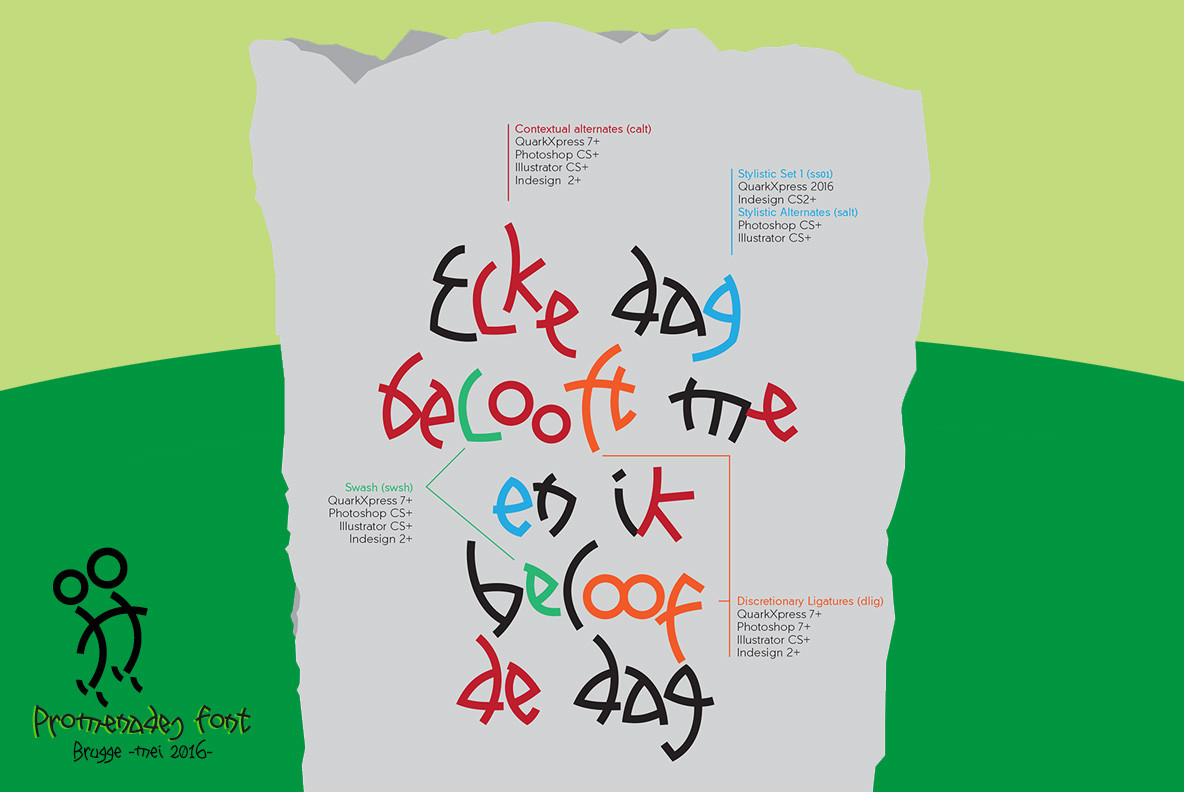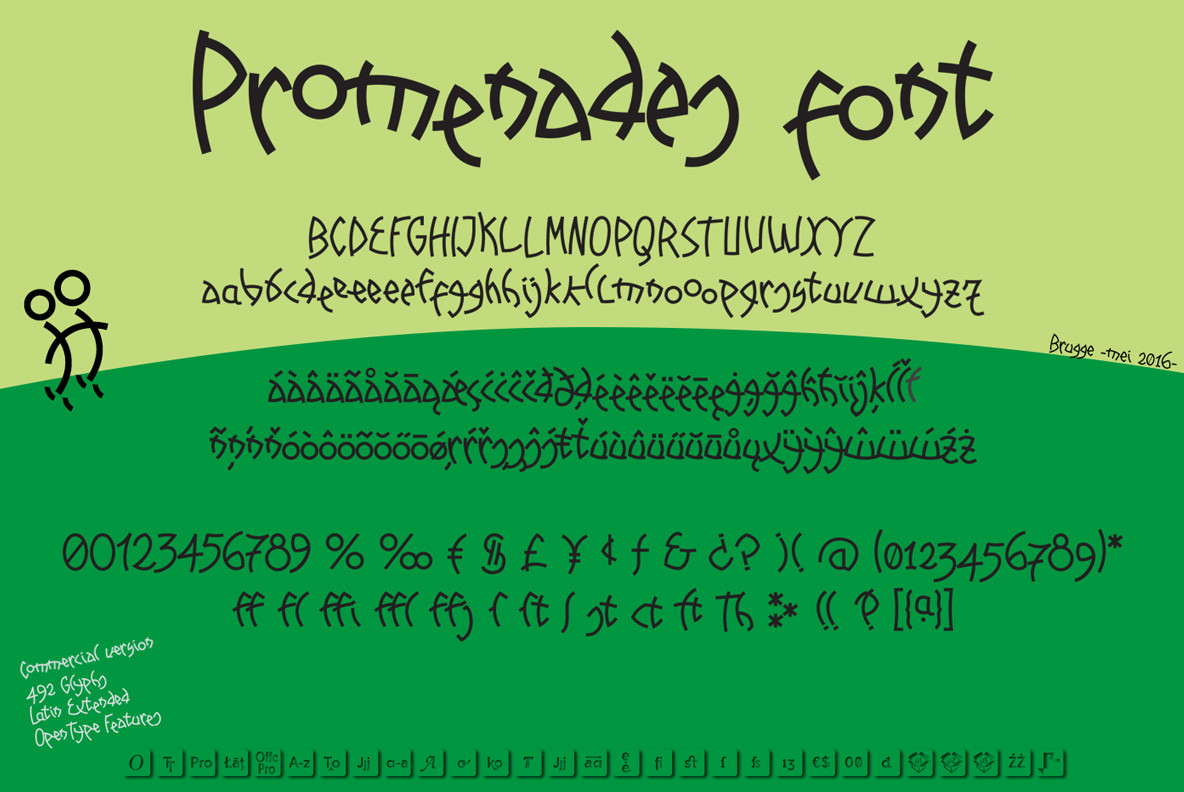
Promenades Font
Promenades
On a walk I've done in May 2016 with a friend by the Belgian city of Bruges, I found along the roads surrounding the city a phrase carved on a stone (Elke dag belooft me ik beloof dag) typography was me curious, interesting and attractive at a time to digitize, with a style that could be described as modern and relaxed runic, Promenades font is the result of this typographical rescue.
• Typography includes several features for OpenType: ligatures, contextual alternates, 3 stylistic sets, contextual swashes and more... to get many different styles of writing.